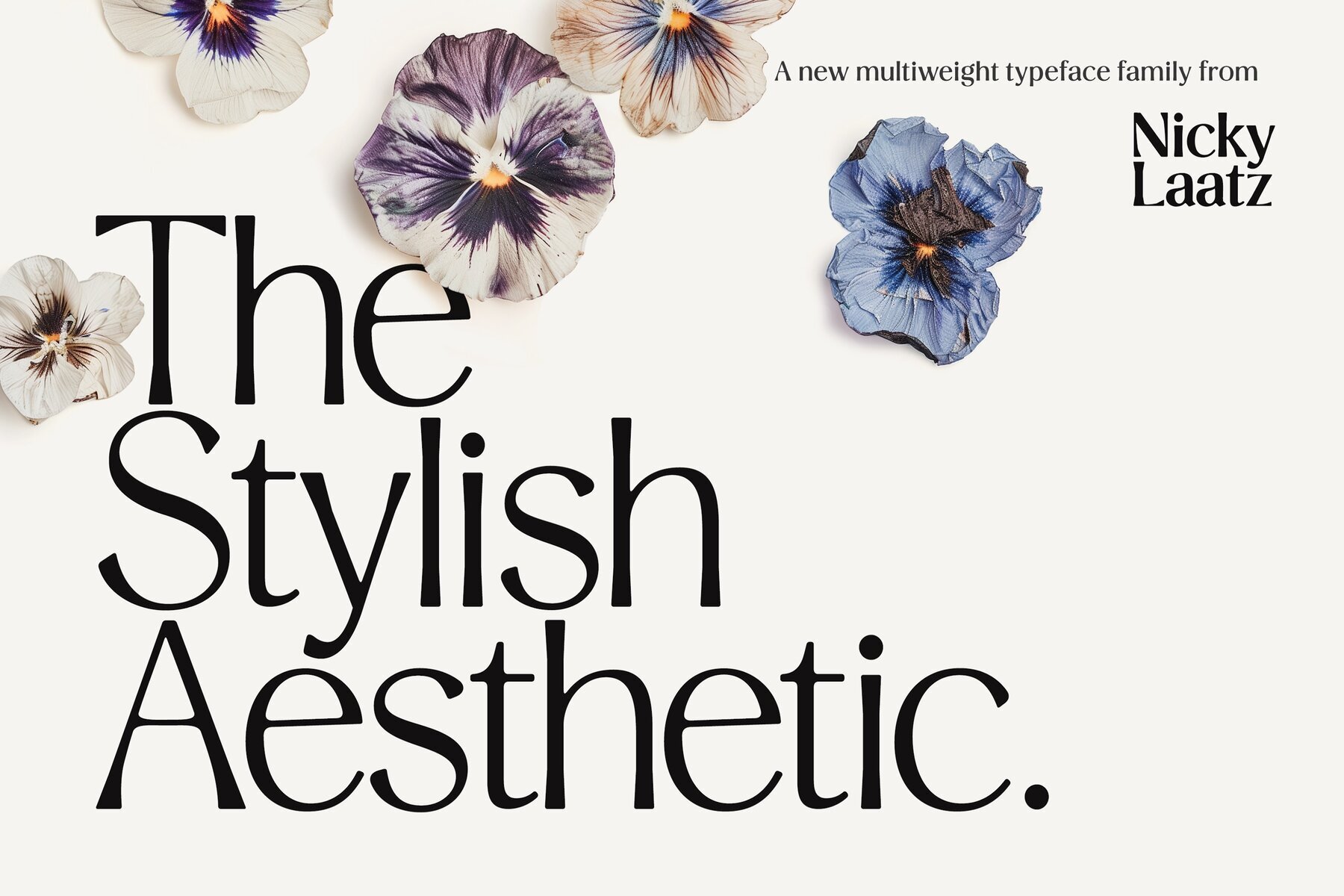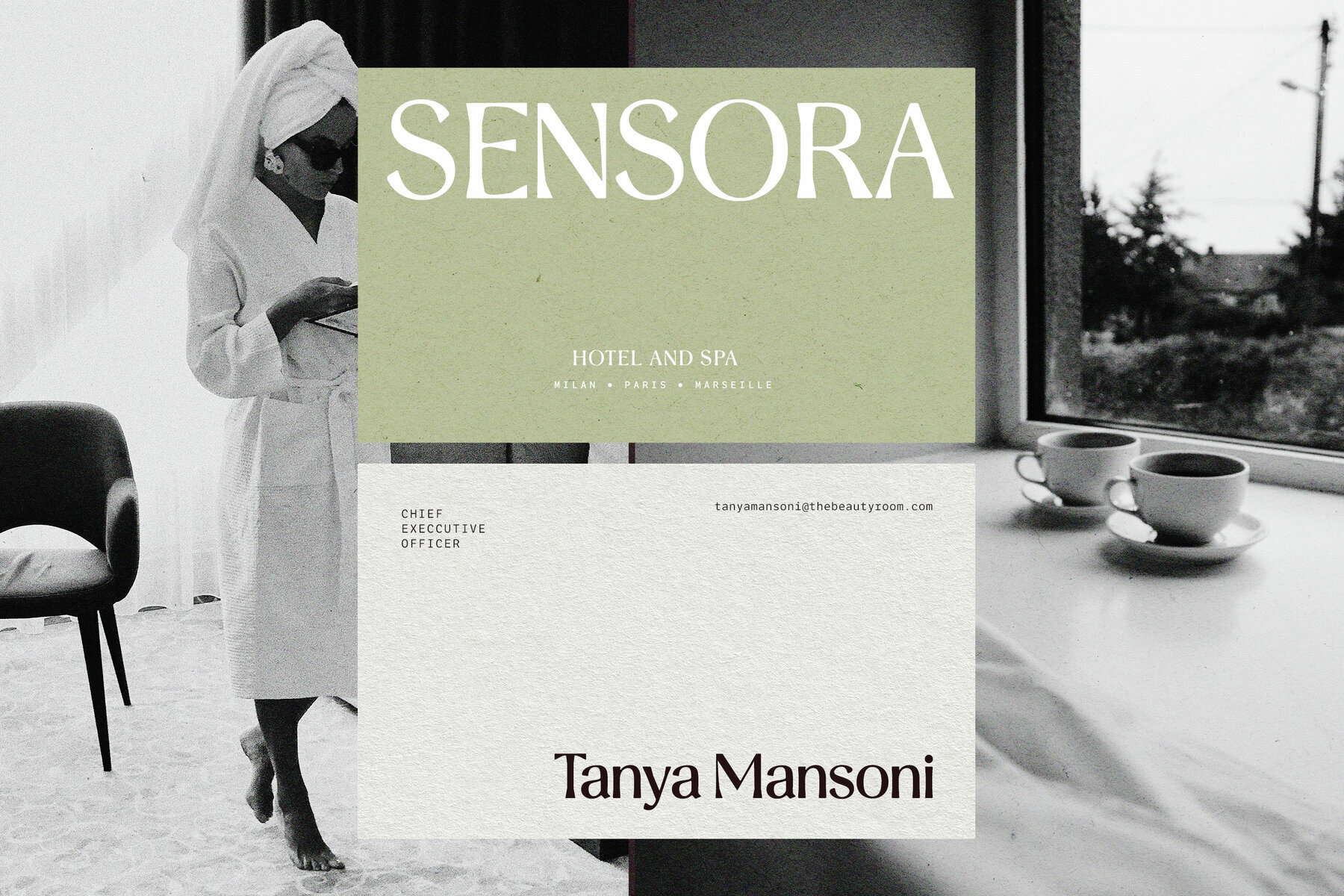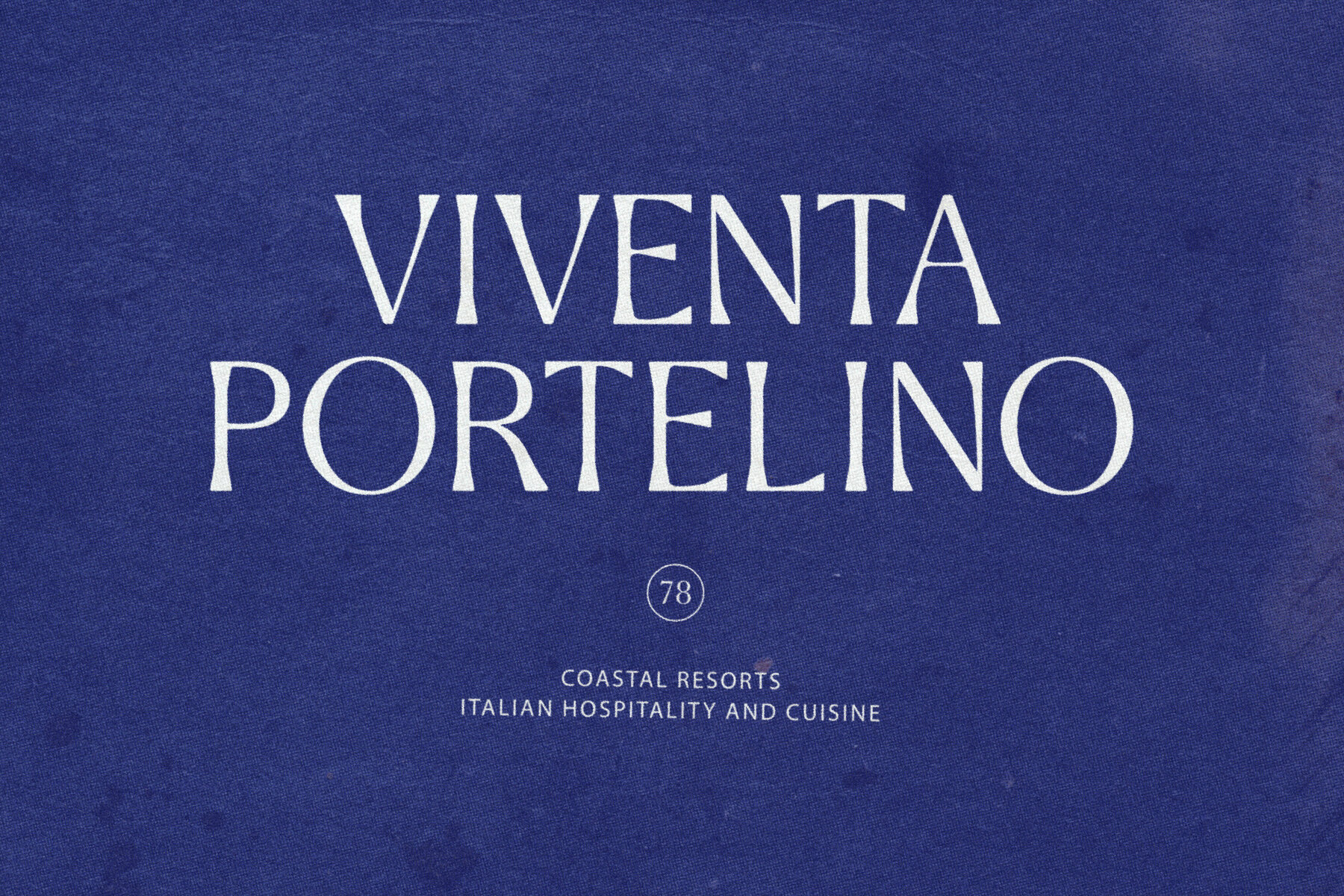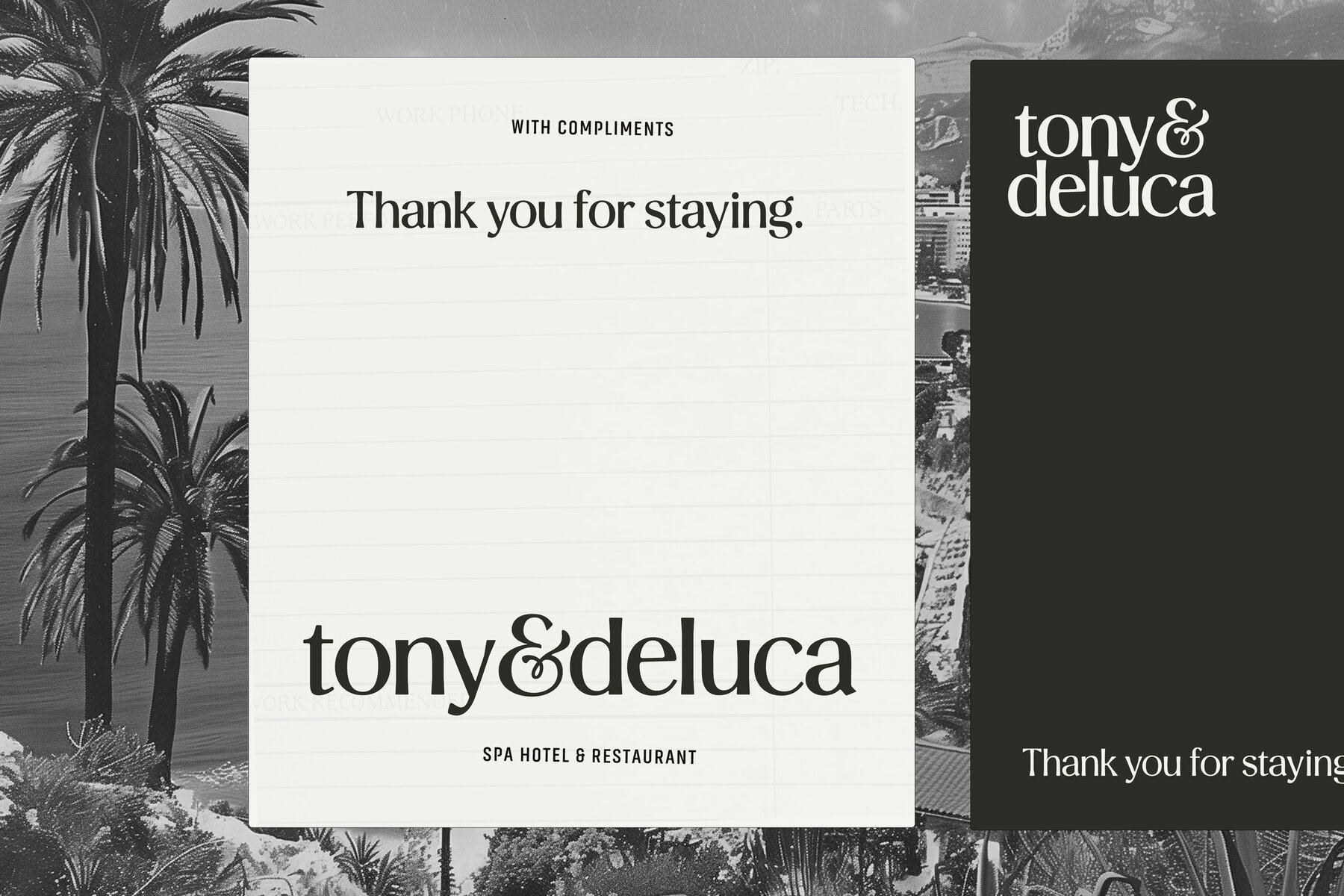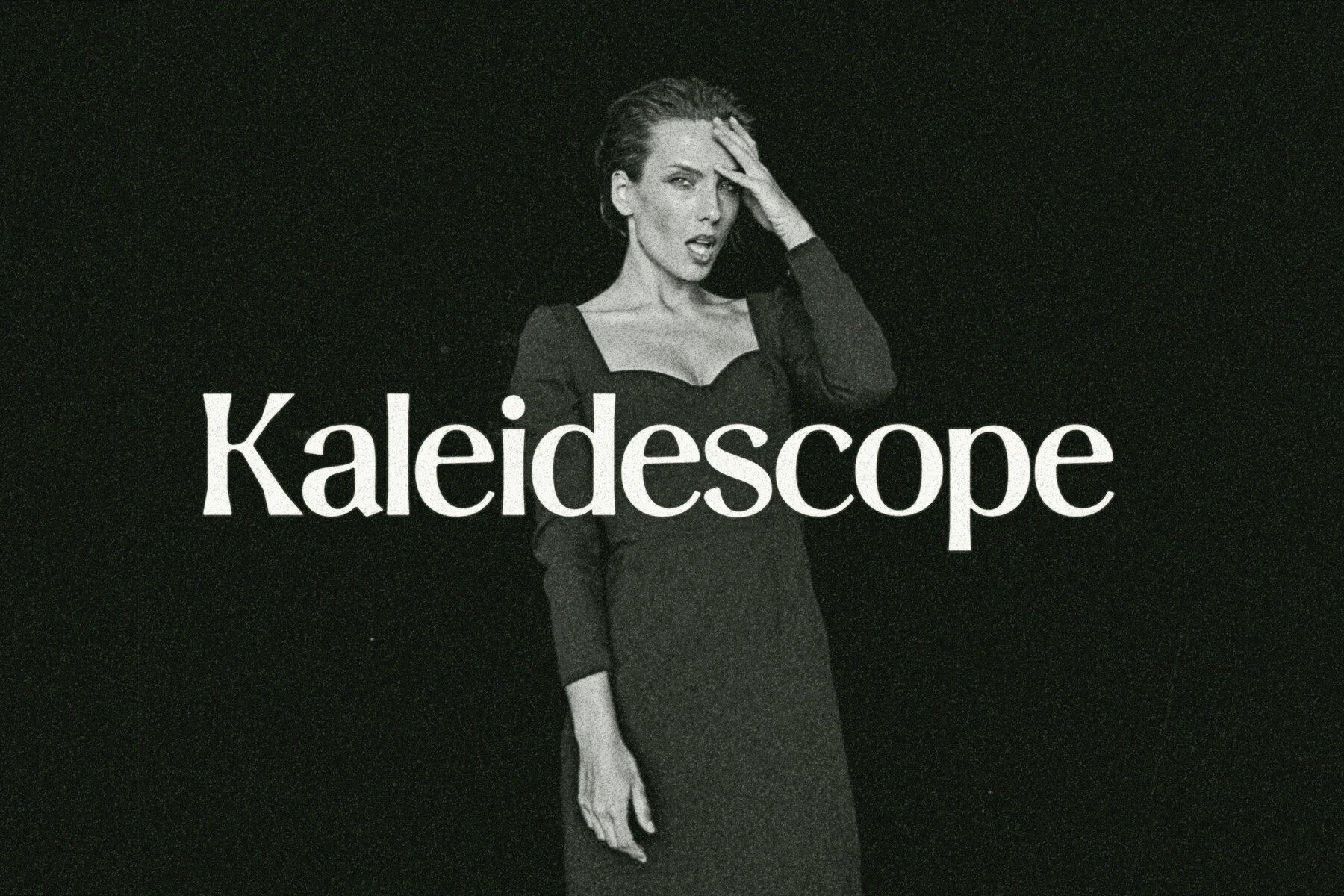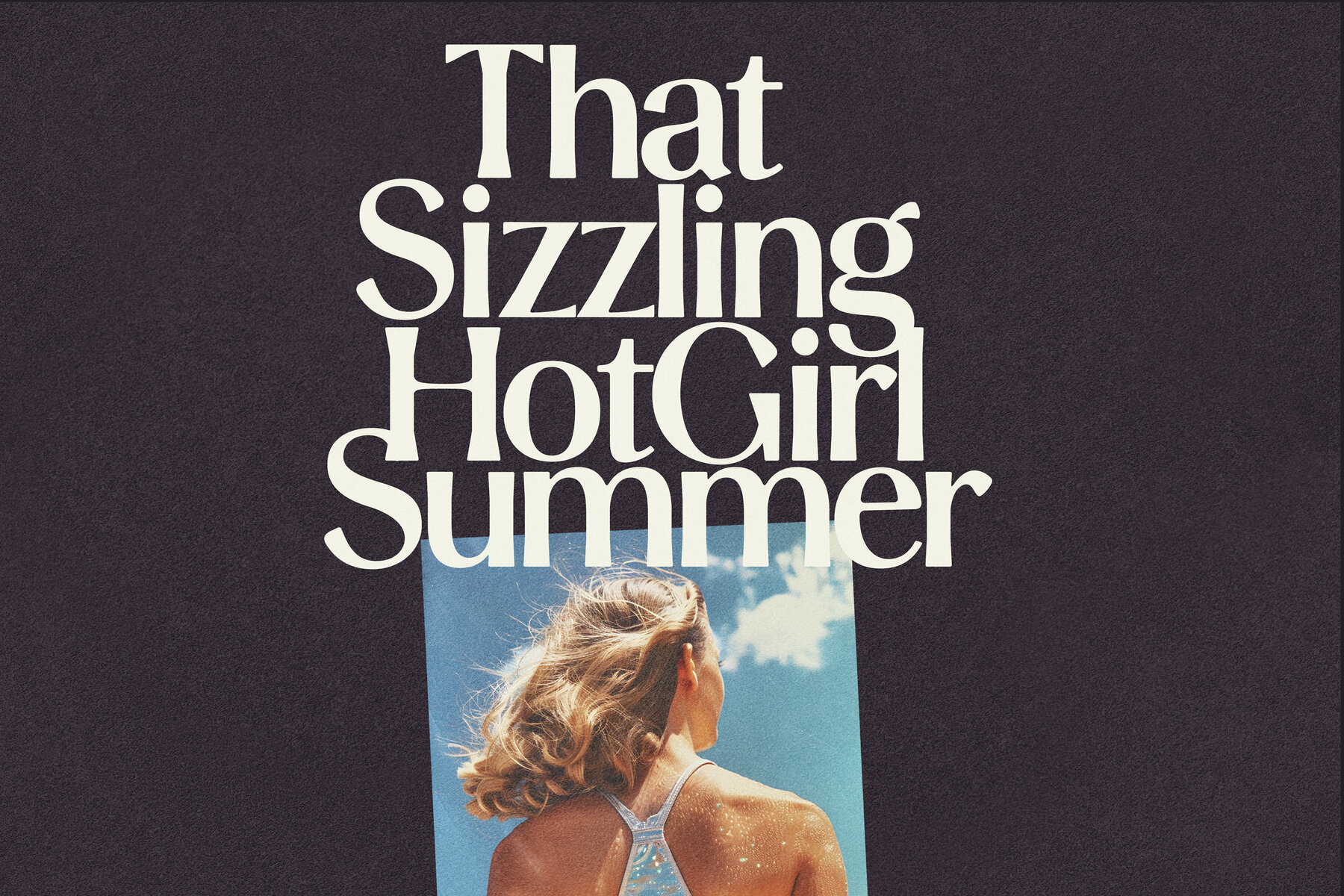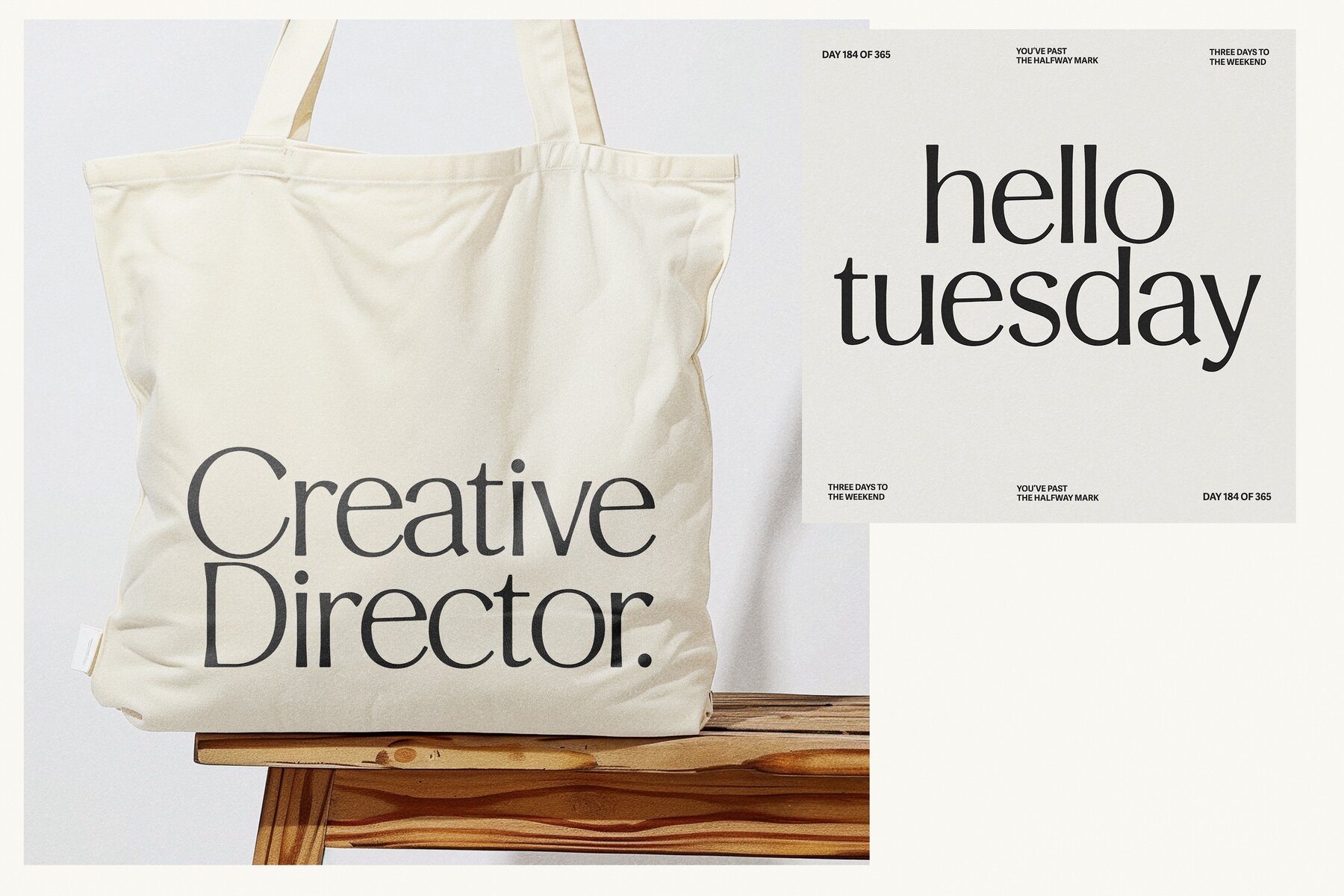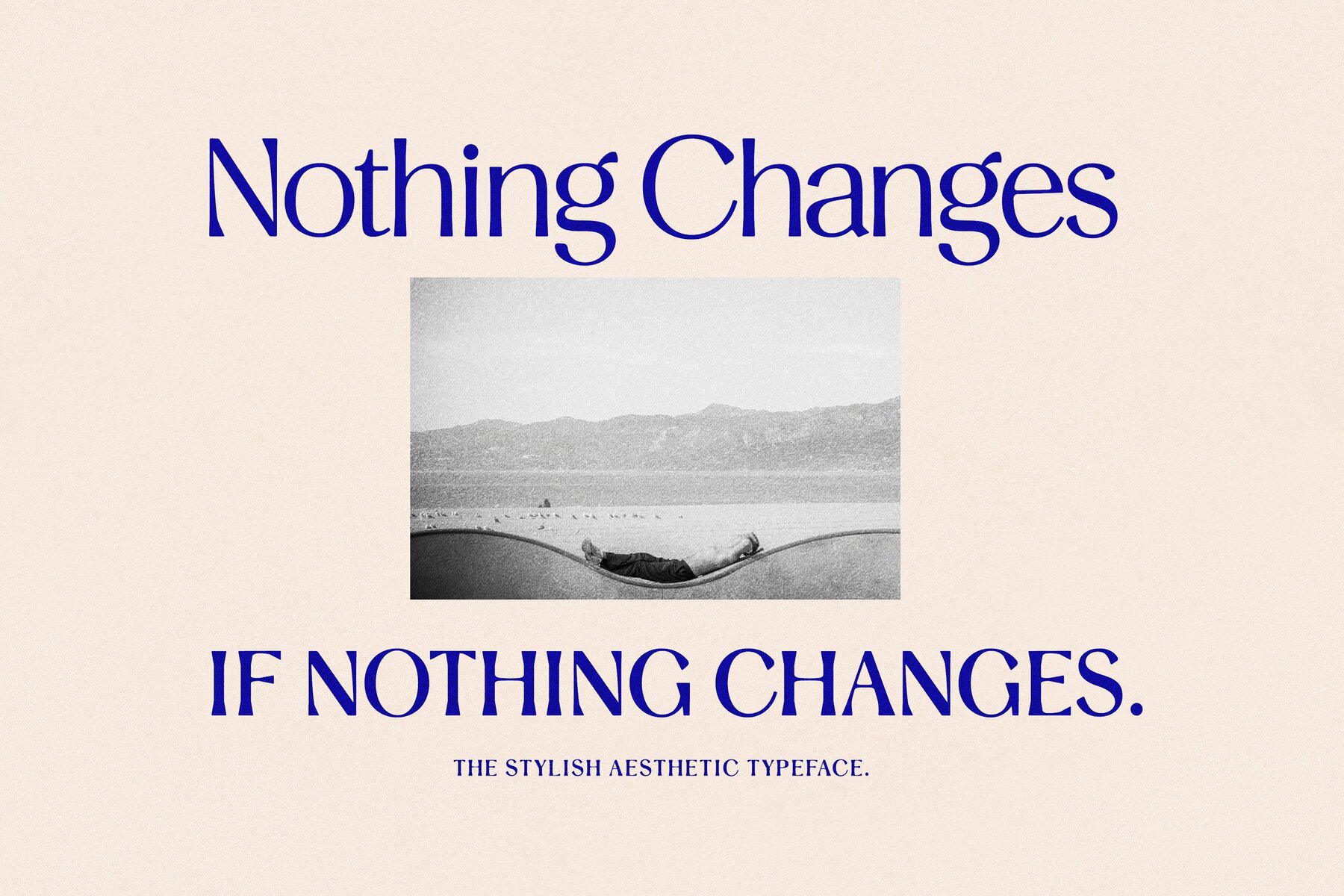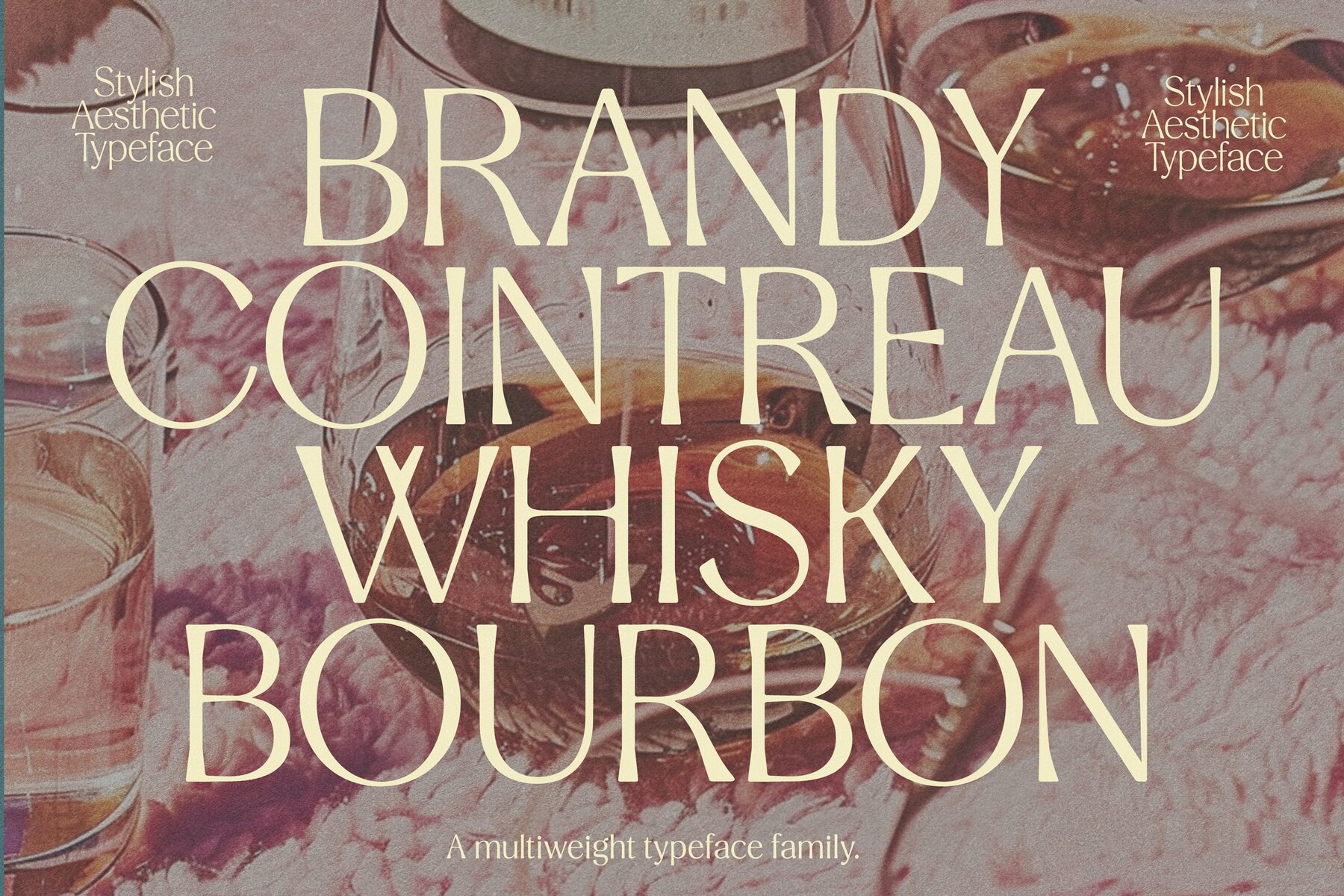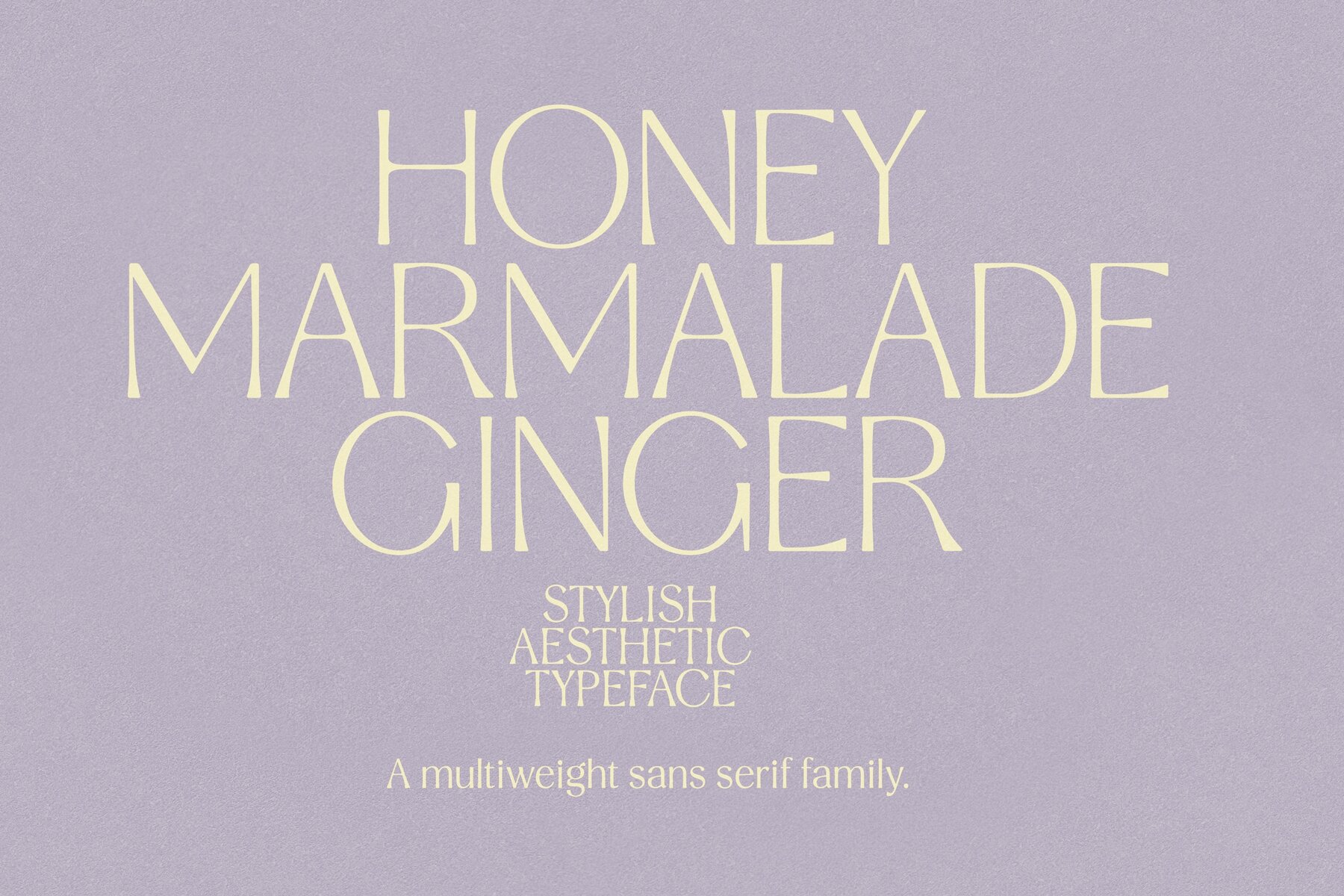
Stylish Aesthetic Font
Make heads turn with the new ' Stylish Aesthetic ' - A Chic, bold and sleek new multi-weight typeface. A high contrast sans, where smooth and angular forms meet in perfect harmony. 9 Weights in total - From a smooth & sophisticated 'Extra light' , to a dramatically angular ' Black' ....she has you covered for everything in between. Language support included for: Danish, English, Filipino, French, German, Indonesian, Italian, Low German, Luo, Luxembourgish, Norwegian Bokmål, Norwegian Nynorsk, Portuguese, Spanish, Swedish, and Swiss German.